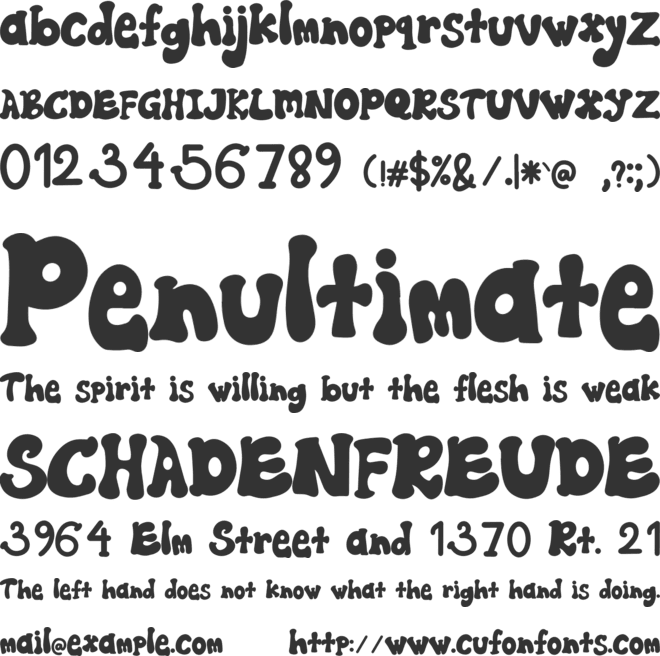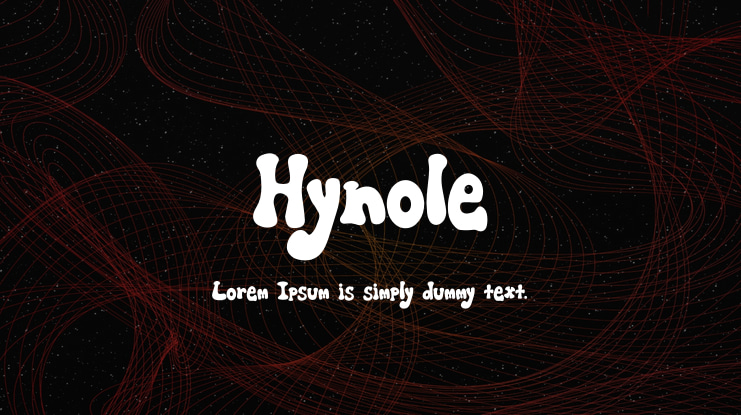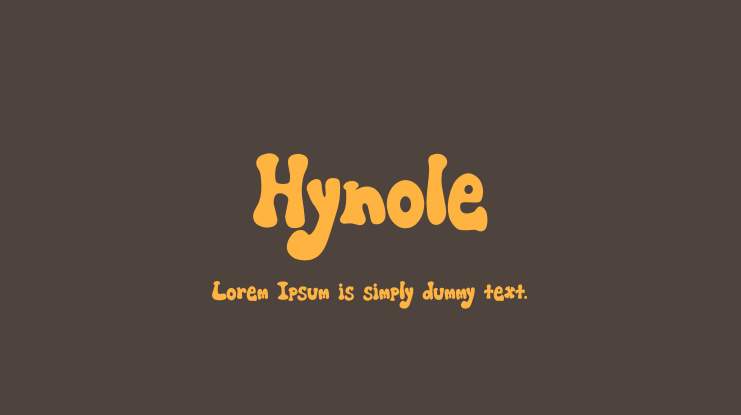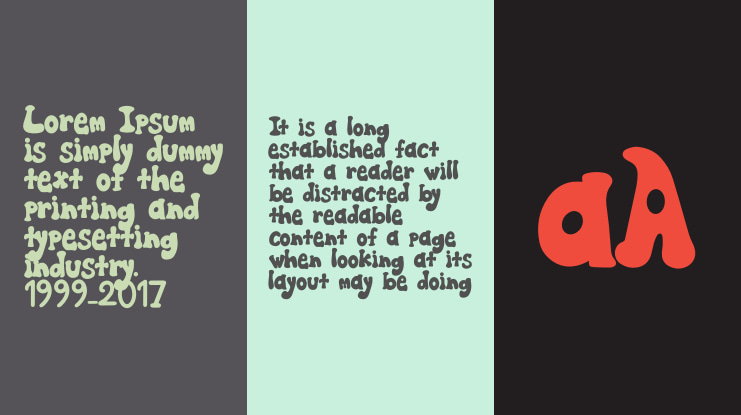
Hynole Font
Hynole Display Font is a unique display font inspired by retro typography from the 80’s combine with bold style. Your design projects will absolutely look fancier with this font.
Hynole Display Font best uses for logotype, poster, logos, product packaging, cover, merchandise, greeting cards, social media posts, branding, advertisement and many more. Let your imagination run free!